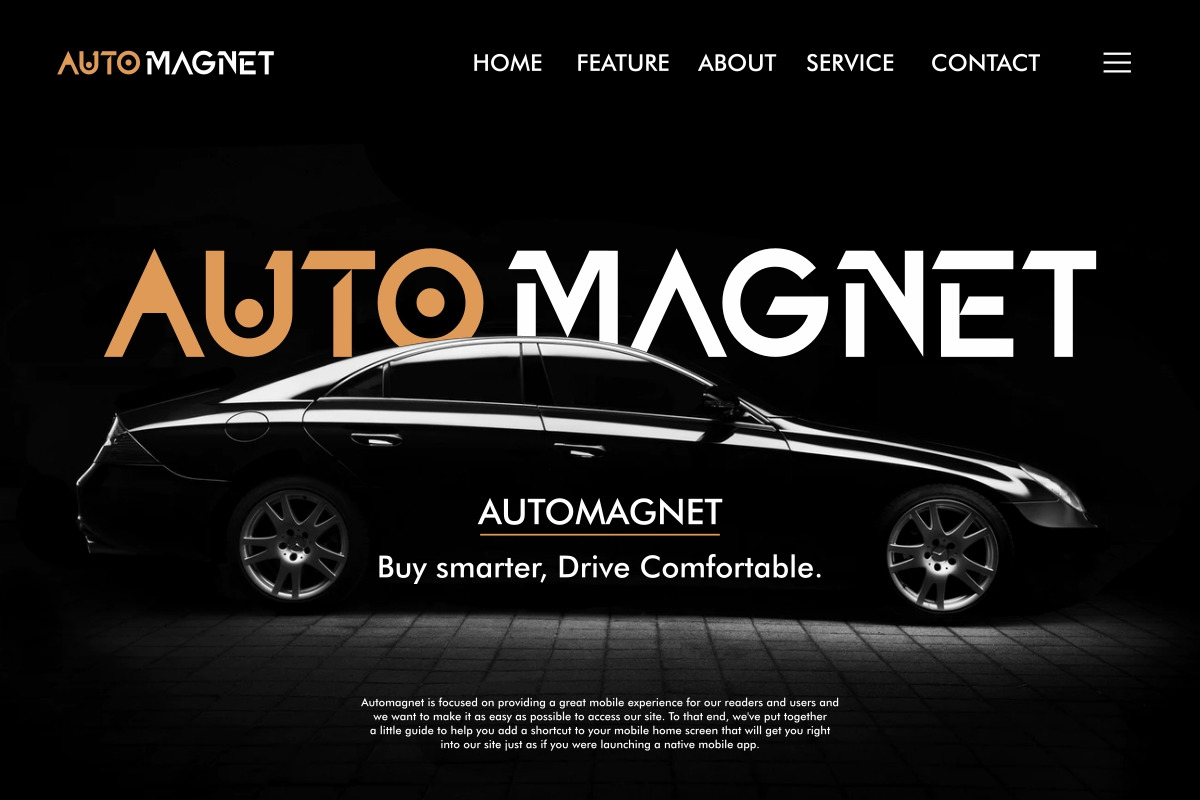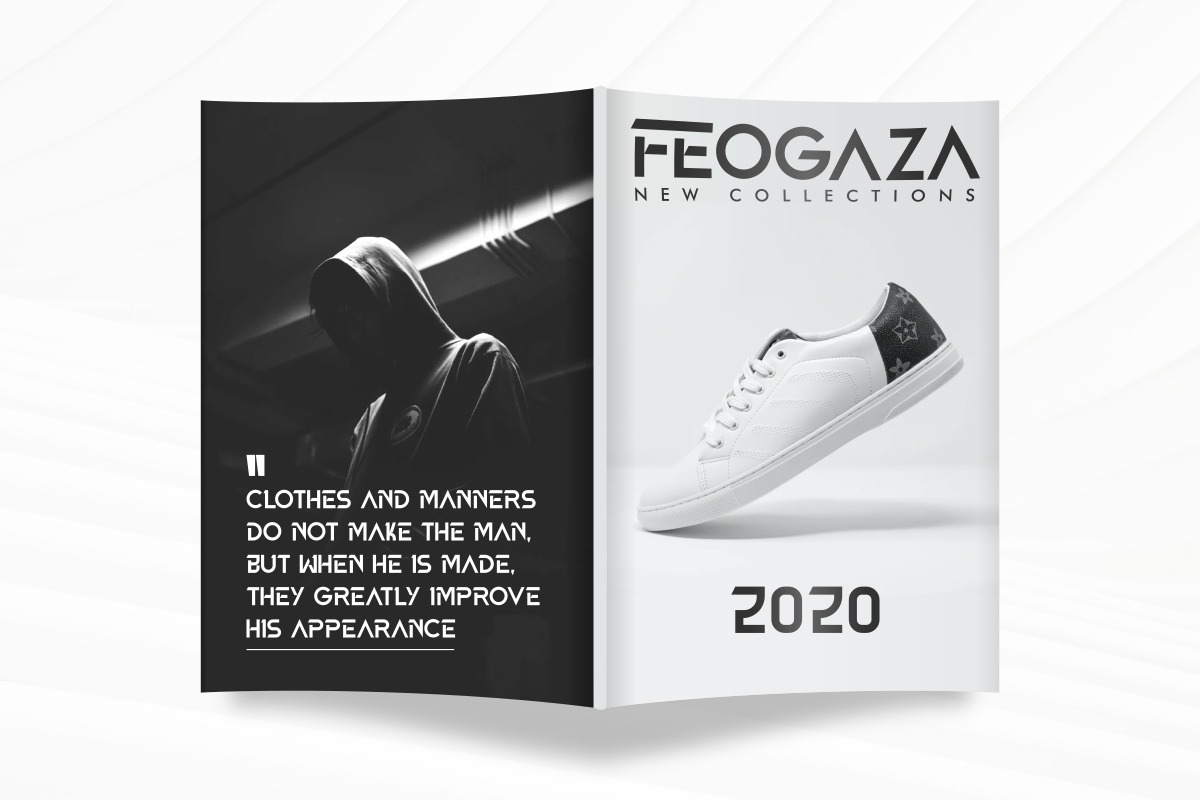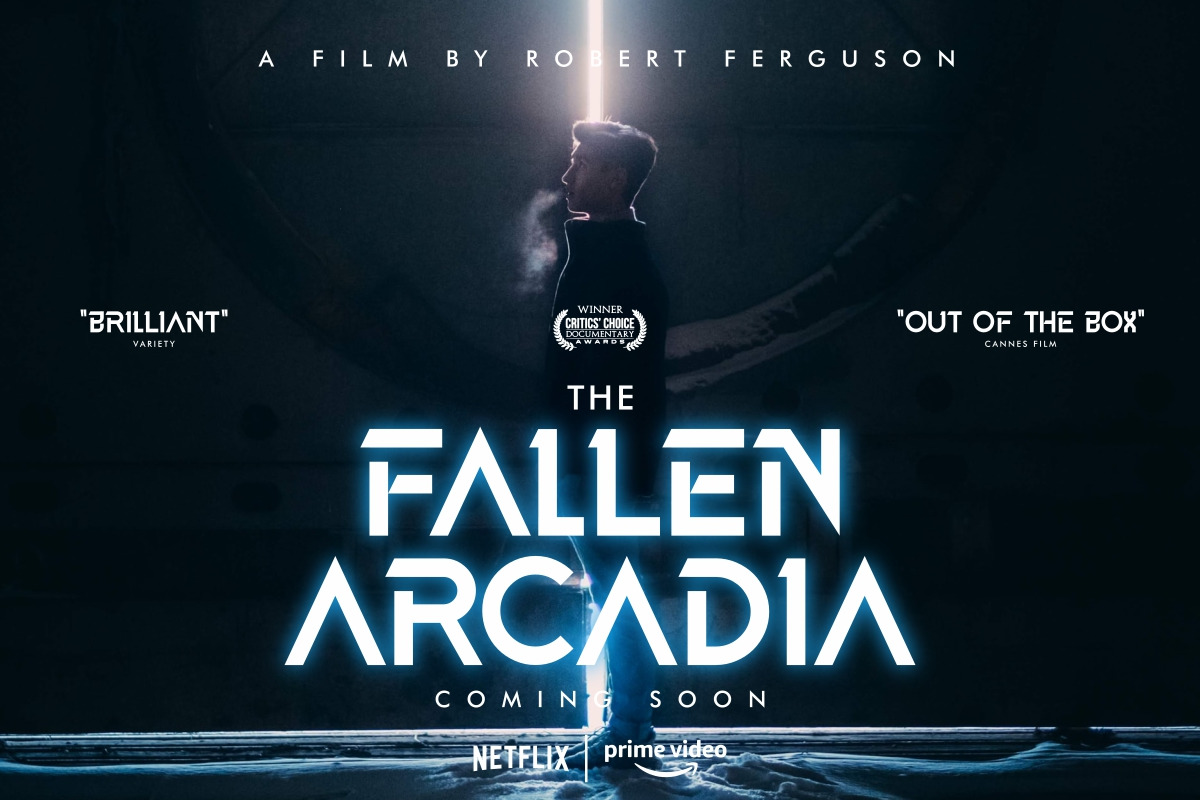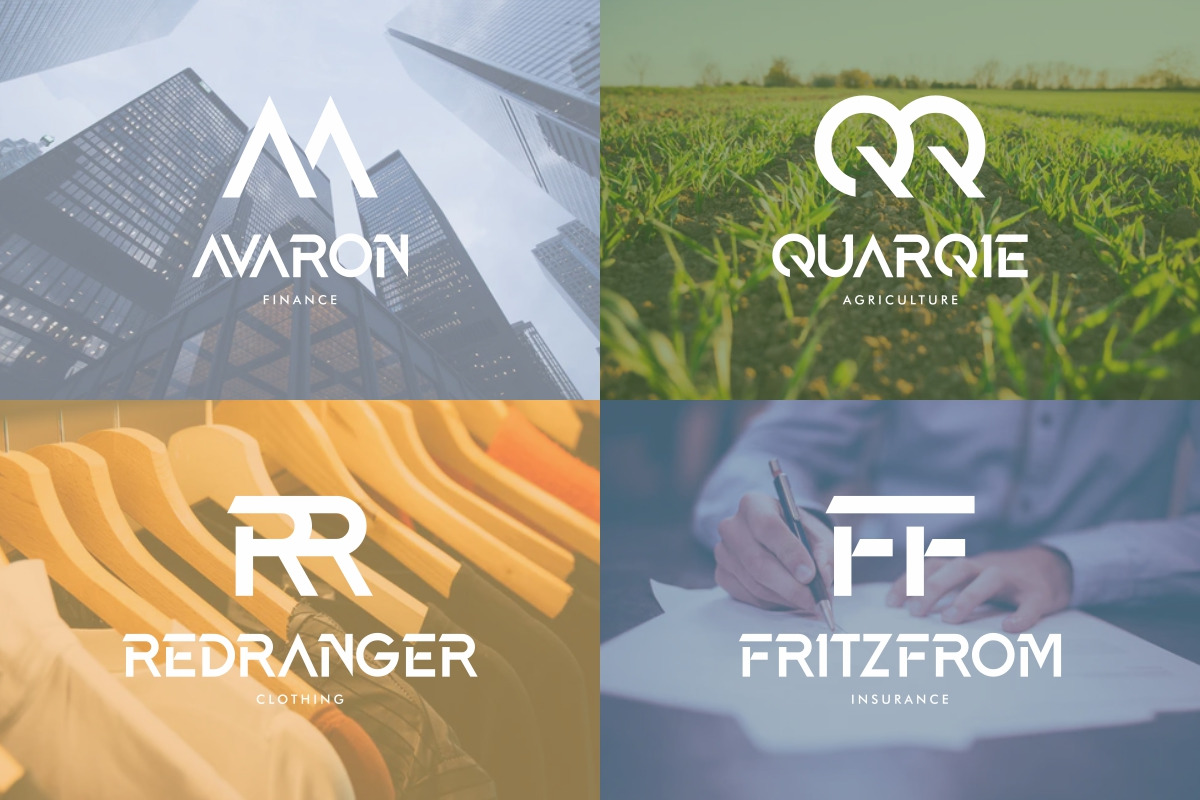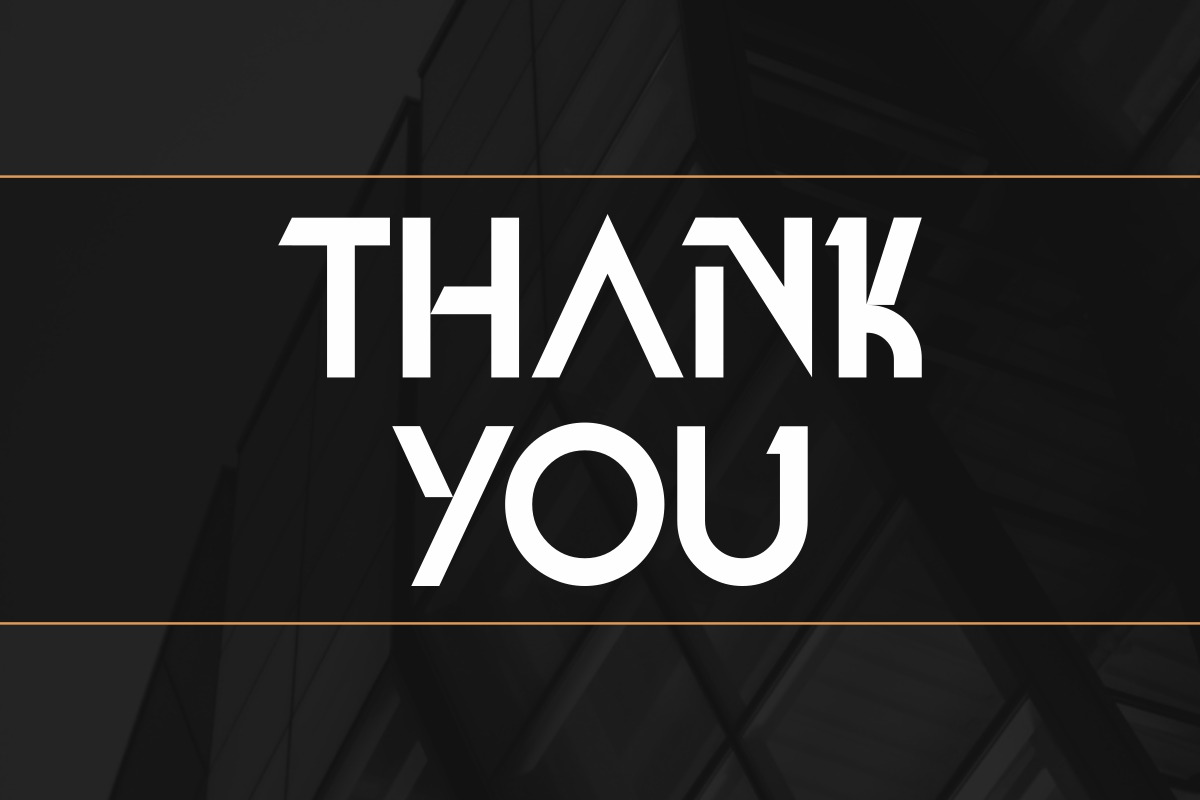
AGROZZA Unique Sharp Sans Serif Font
AGROZZA Font is a modern sans serif font display family. It has futuristic, modern and stylish style.
The theme/industries of this font is Futuristic, Beauty, Technology, Game, Magazine, Music, Spaceship, aircraft etc.